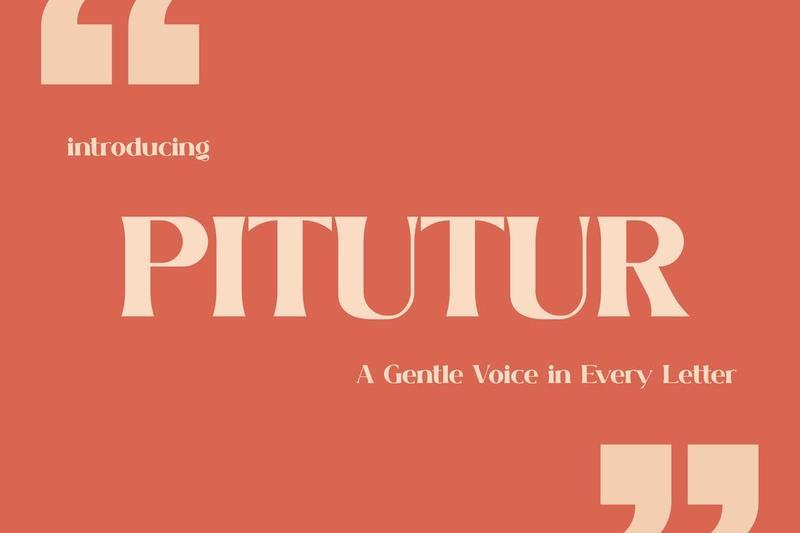
**PITUTUR Cheerful Branding Display Font**
PITUTUR is a playful soft-serif display typeface for kid-friendly branding and cheerful editorial design, blending rounded terminals, gentle contrast, and a slightly bouncy rhythm that feels warm, expressive, and easy to read. Its character leans toward a friendly and nostalgic tone, making it perfect for Instagram visuals, childrens books, snack packaging, and lifestyle posters. The letterforms are smooth and curved, with a human touch that balances clarity and personalityideal for designers who want approachable yet distinctive typography.
Key Features:
* Friendly Rounded Structure
Soft curves and low contrast create a welcoming, easy-to-read look.
* Expressive Display Style
Strong personality for headlines, quotes, and standout visuals.
* Multilingual Power
Supports 67 languages, making it ready for global communication.
* Balanced Playfulness
Maintains readability while delivering a lively, emotional tone.
* Versatile Creative Use
Works smoothly across branding, packaging, editorial, and digital media.
Bring warmth and personality into your next project with PITUTUR. If your design needs to feel friendly, expressive, and globally ready, this typeface gives you the voice to stand out instantlystart creating and make every word feel alive today.